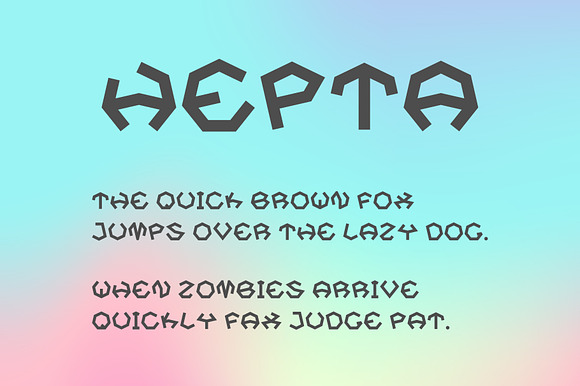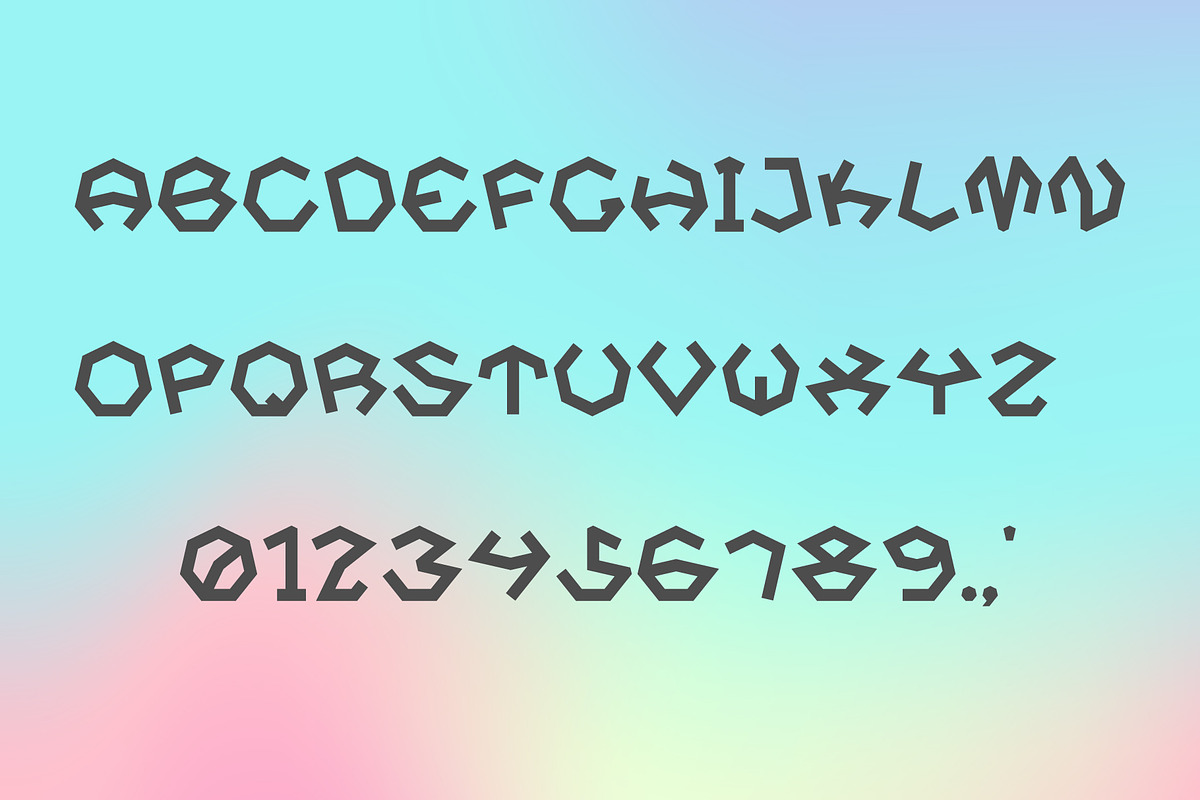
Hepta Typeface. A Heptagonal Font
Hepta Typeface (Heptagonal Geometric Font) is a modern minimalist and clean sans serif font. Perfect for trendy minimalist style design, headers, posters, cards, quotes, stationery, web sites. Web font version (WOFF) is also included.
1. Uppercase letters (A .. Z).
3. Three punctuation marks: dot, comma, apostrophe.
Does not contain: lowercase letters, special symbols.
- Hepta Bold